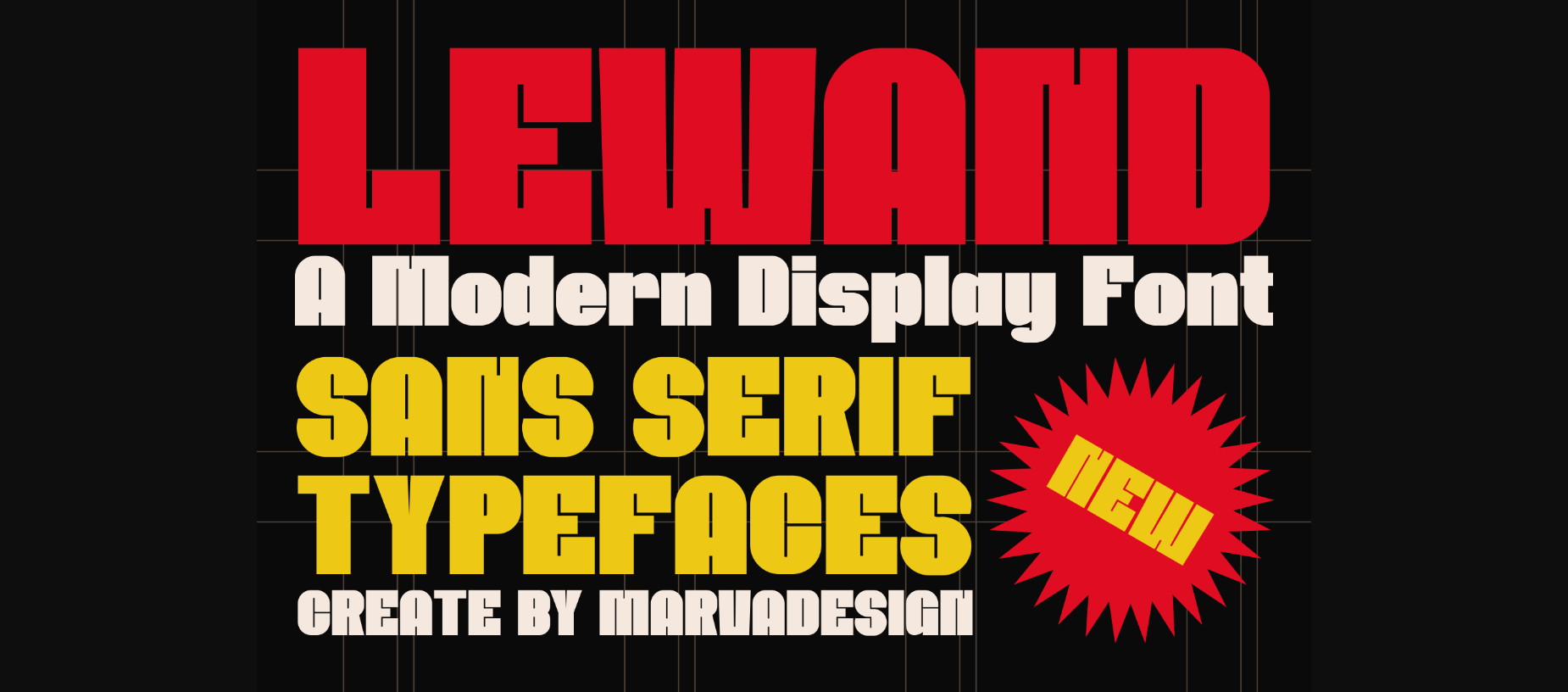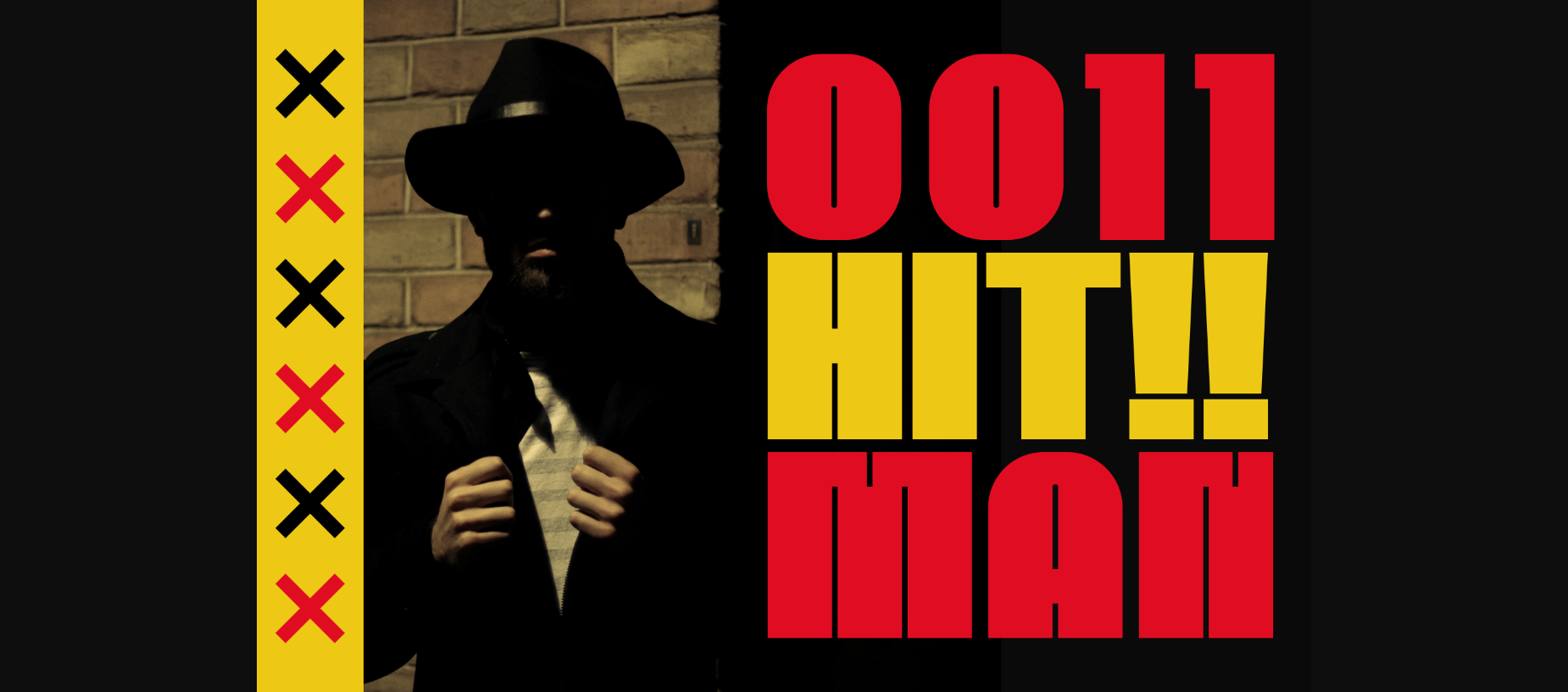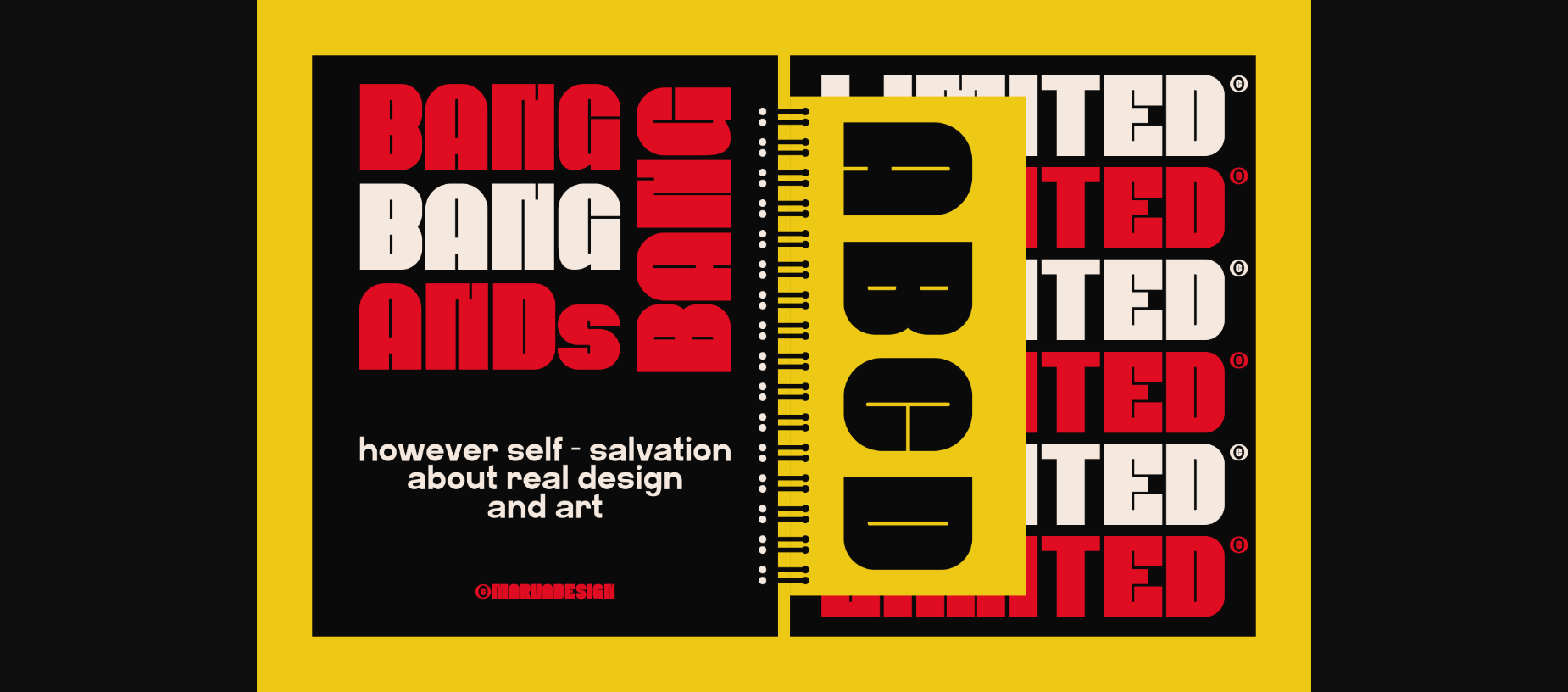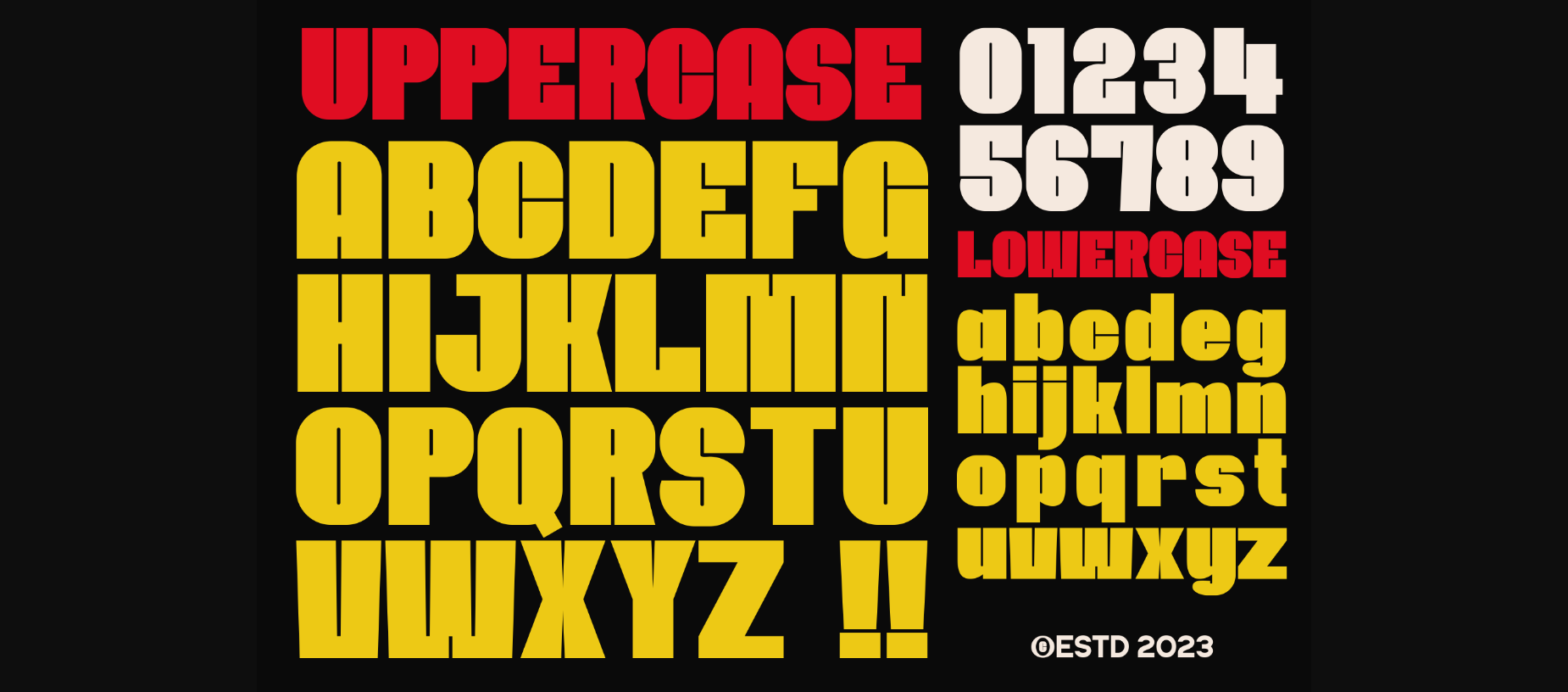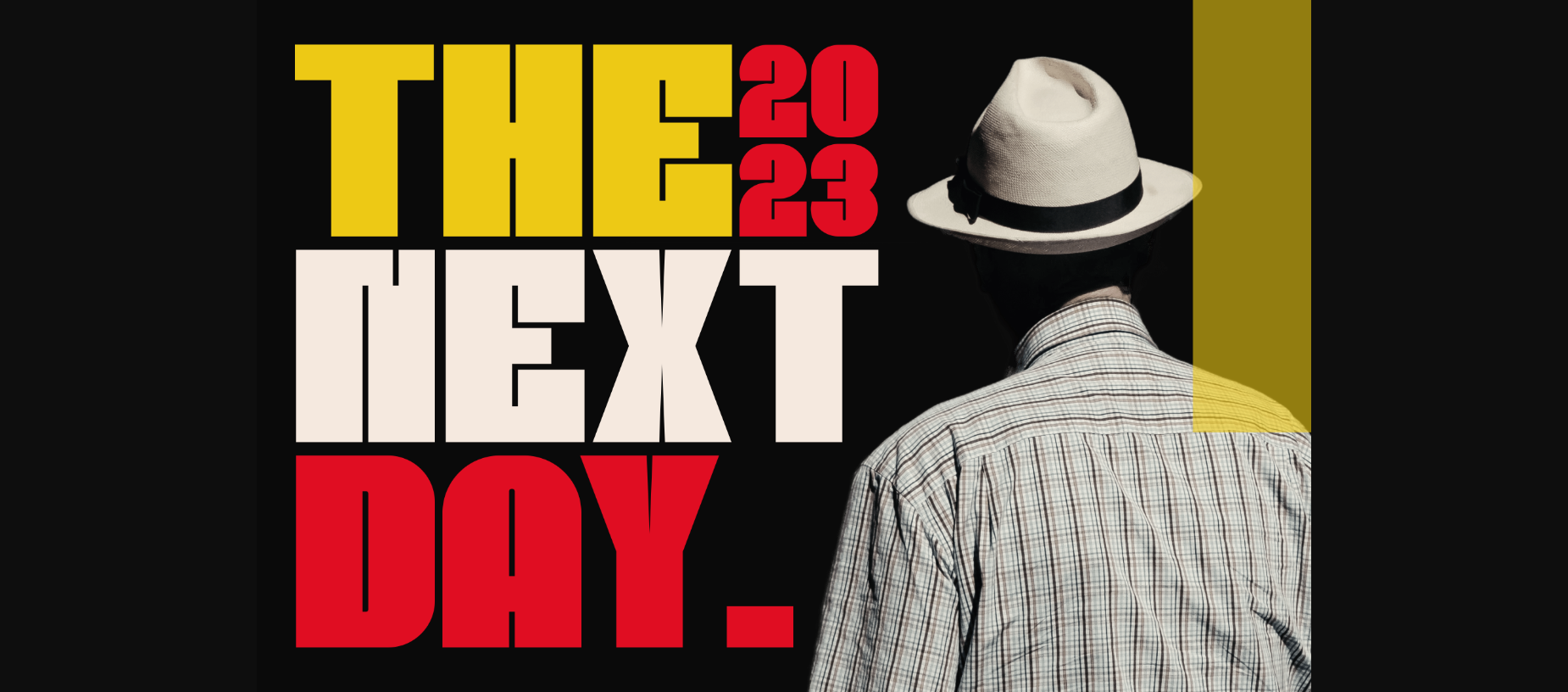
About Lewand Font
Lewand is a modern display sans font, meaning it’s clean and easy to read. It’s great for titles, signs, or any big text you want to stand out. With Lewand, your words will look sleek and stylish, perfect for making an impact without being too fancy.